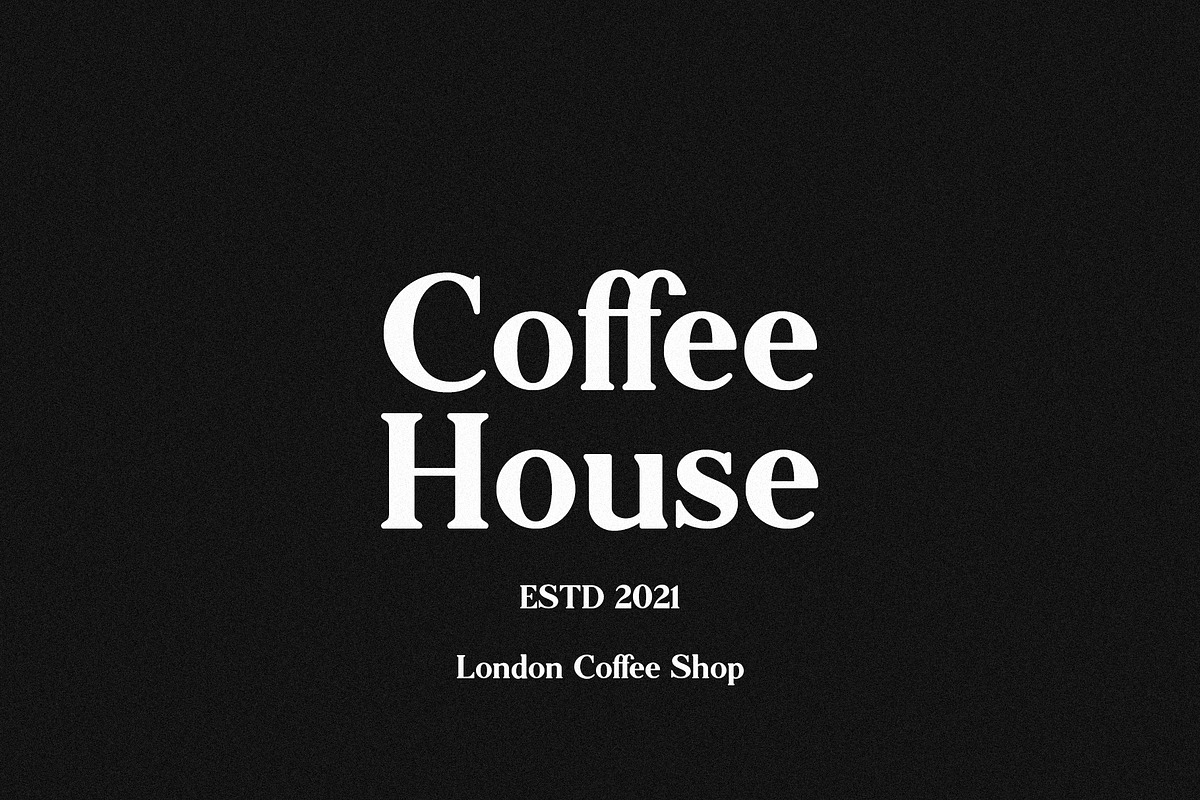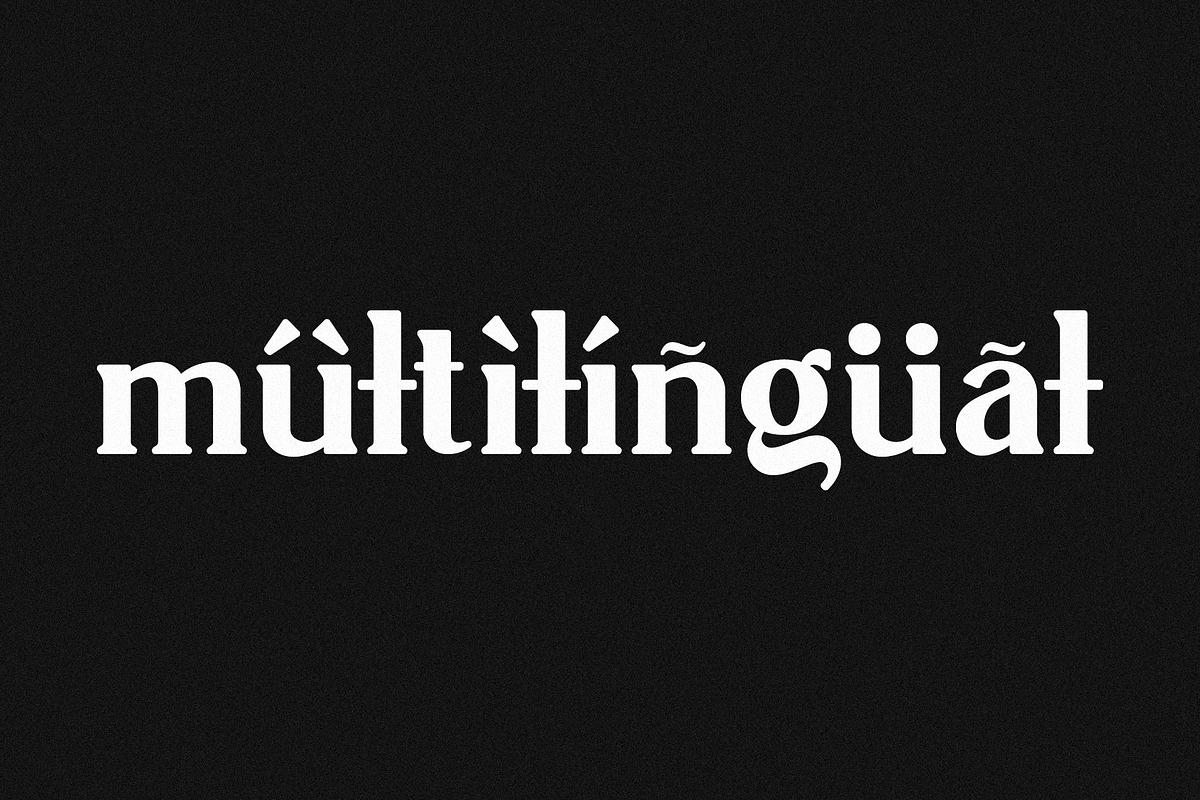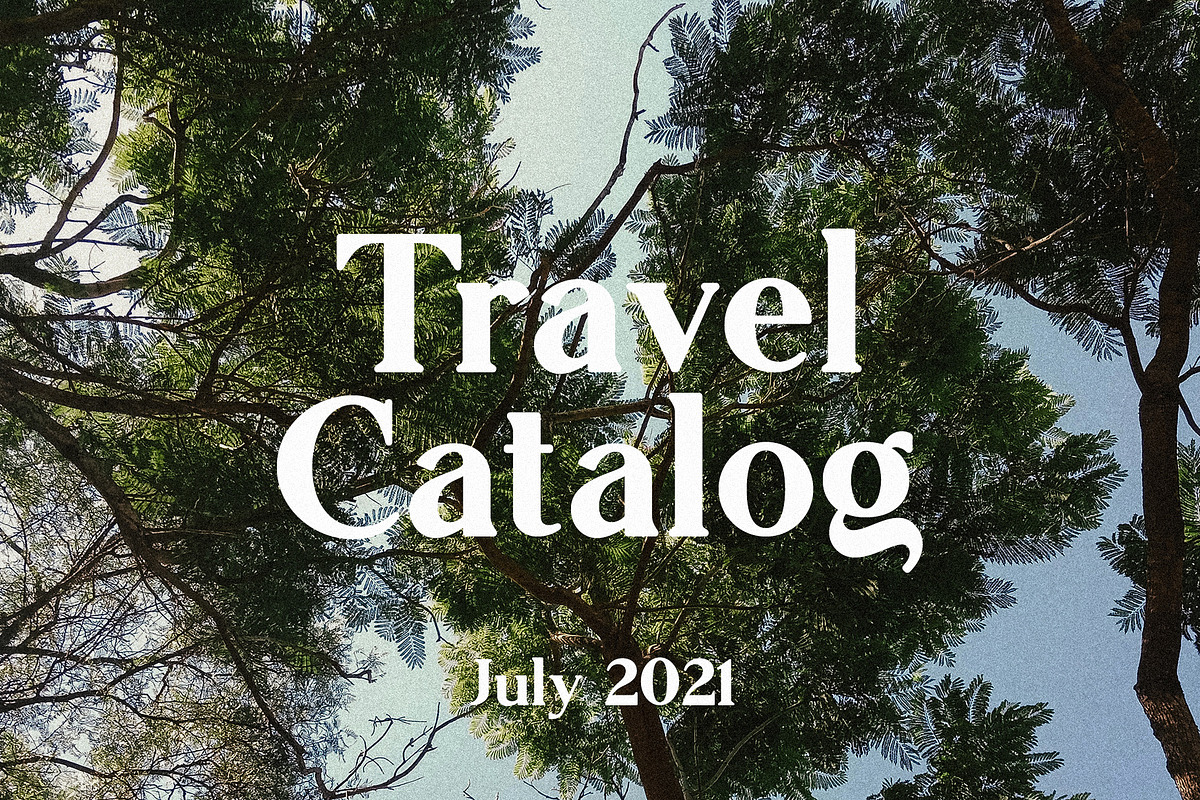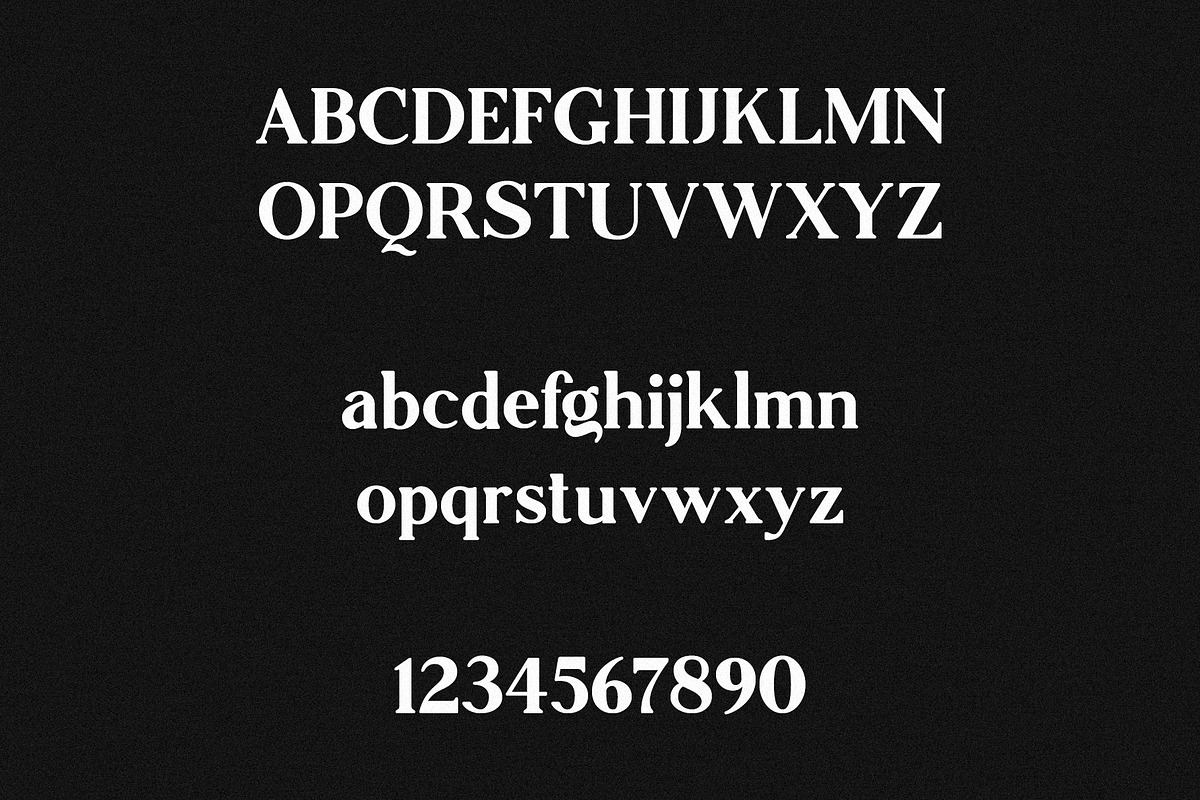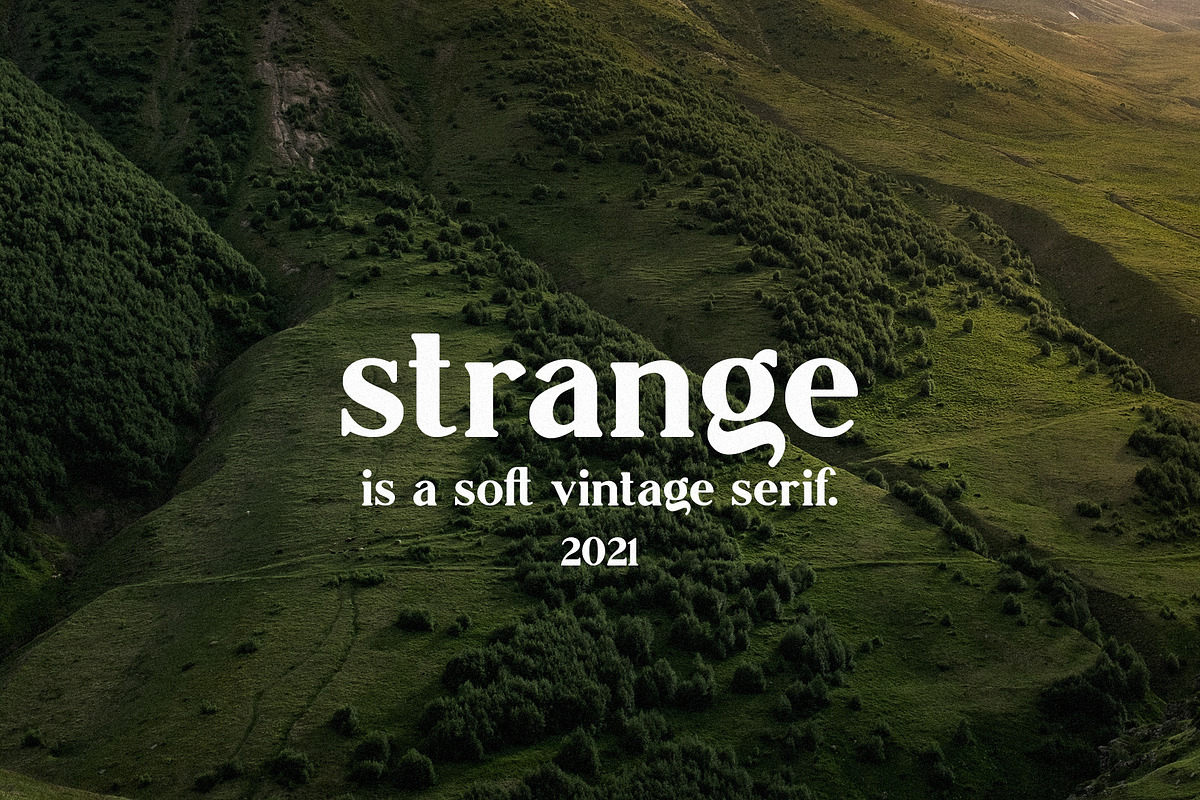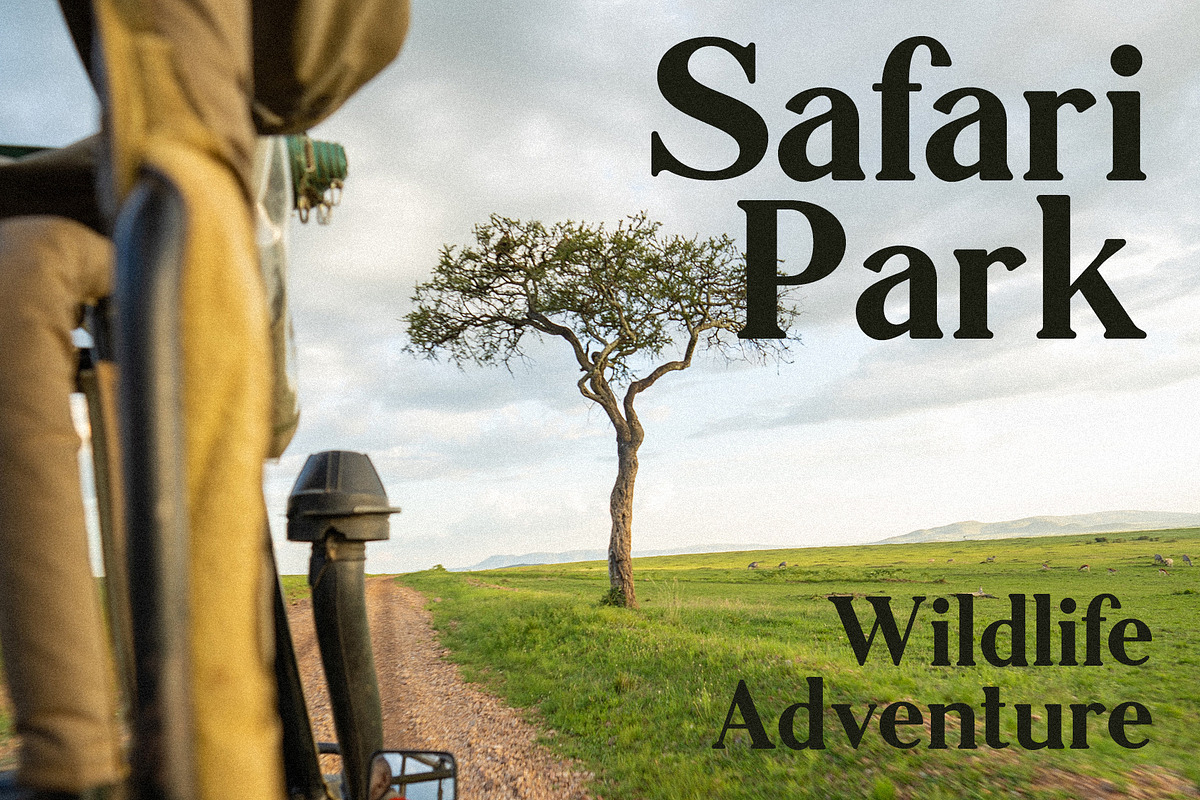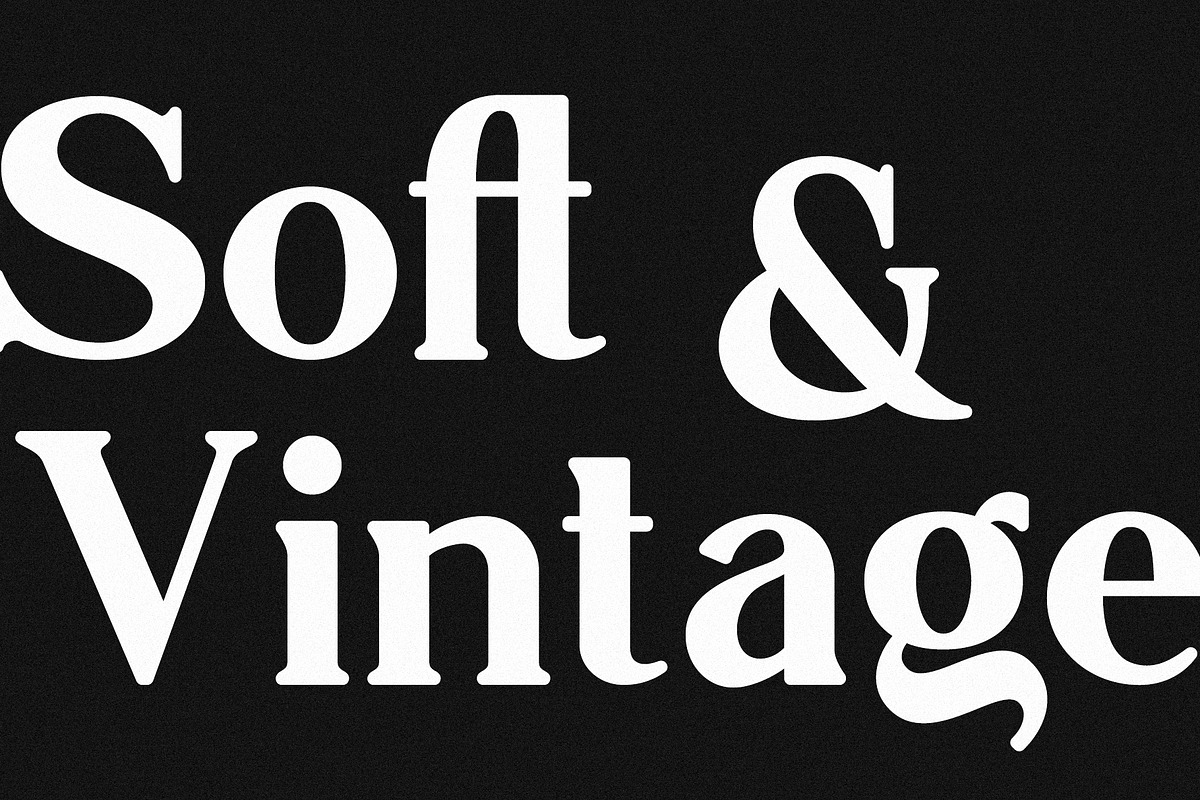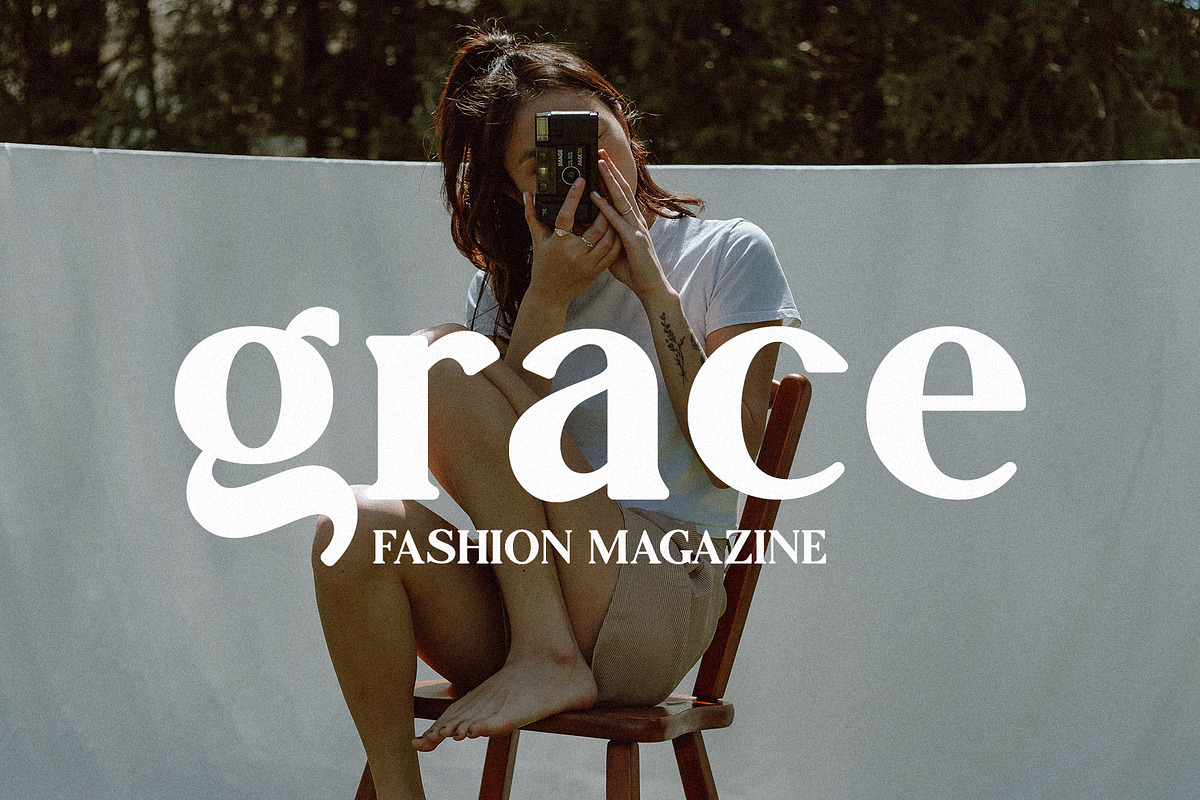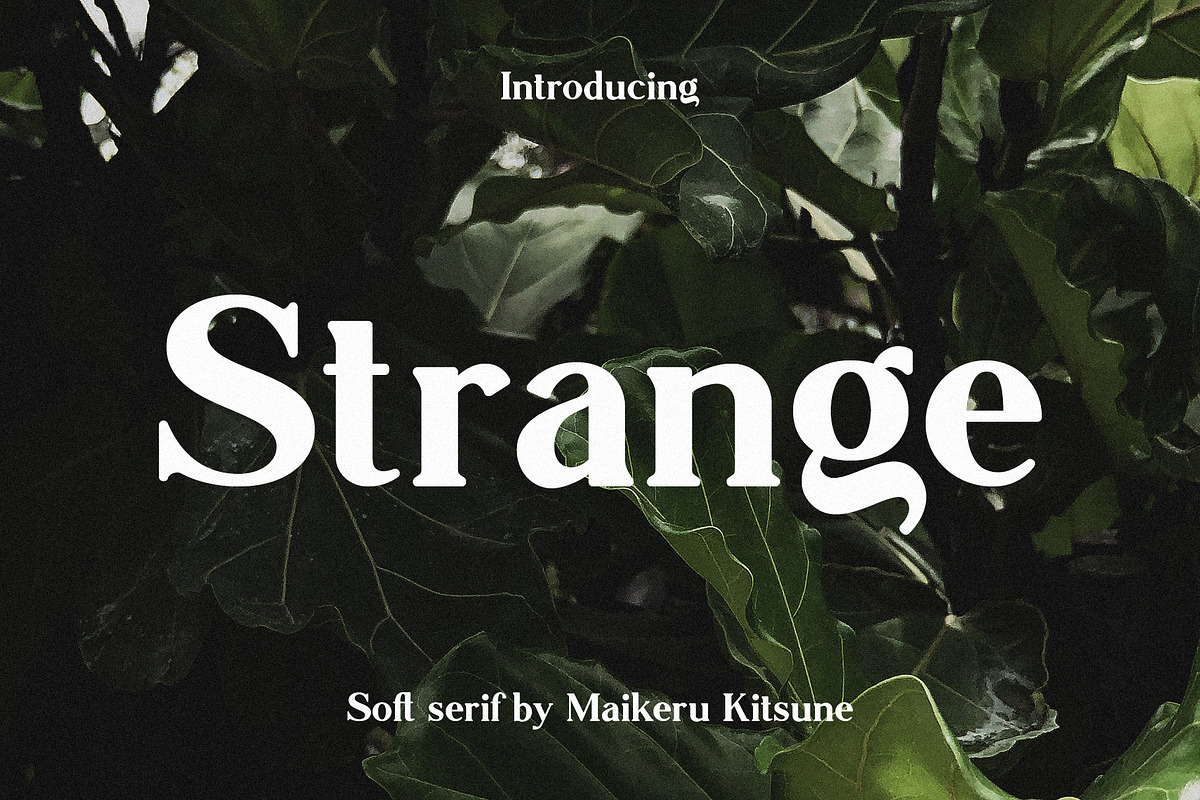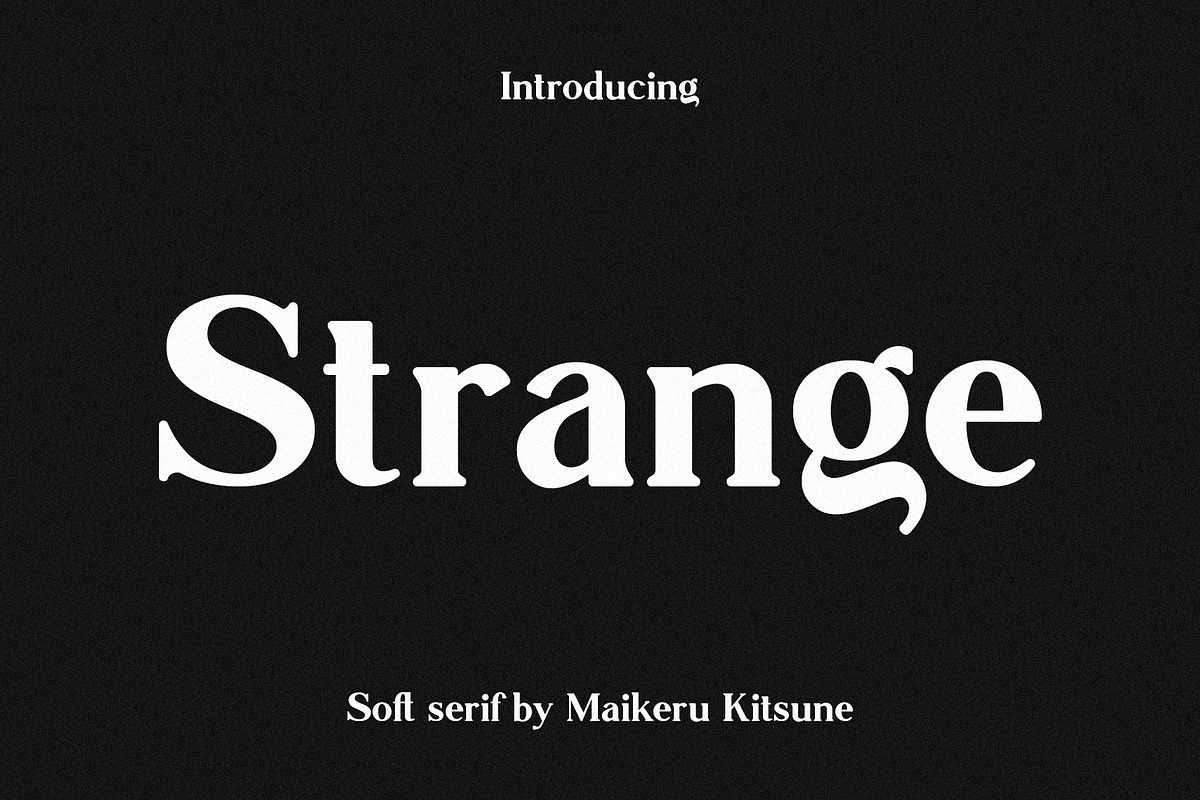
Strange - Soft Serif
Strange is a soft vintage serif. Strange is a combination of classic serif & vintage look. Strange is perfect for vintage logos, headers, t-shirts, magazine headers and many more. Strange helps to create a design in 60s, 70s, 80s styles.
Strange includes:
- Letters
- Symbols & Punctuation
- Basic Ligatures